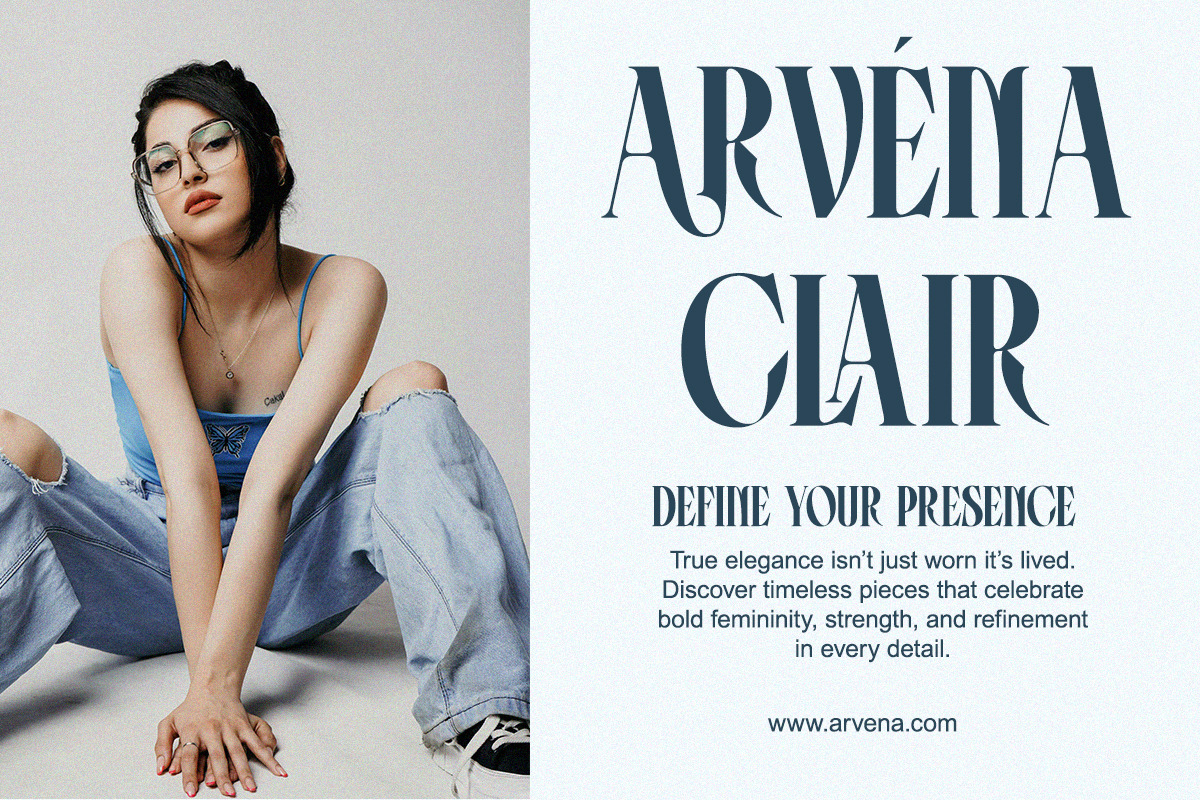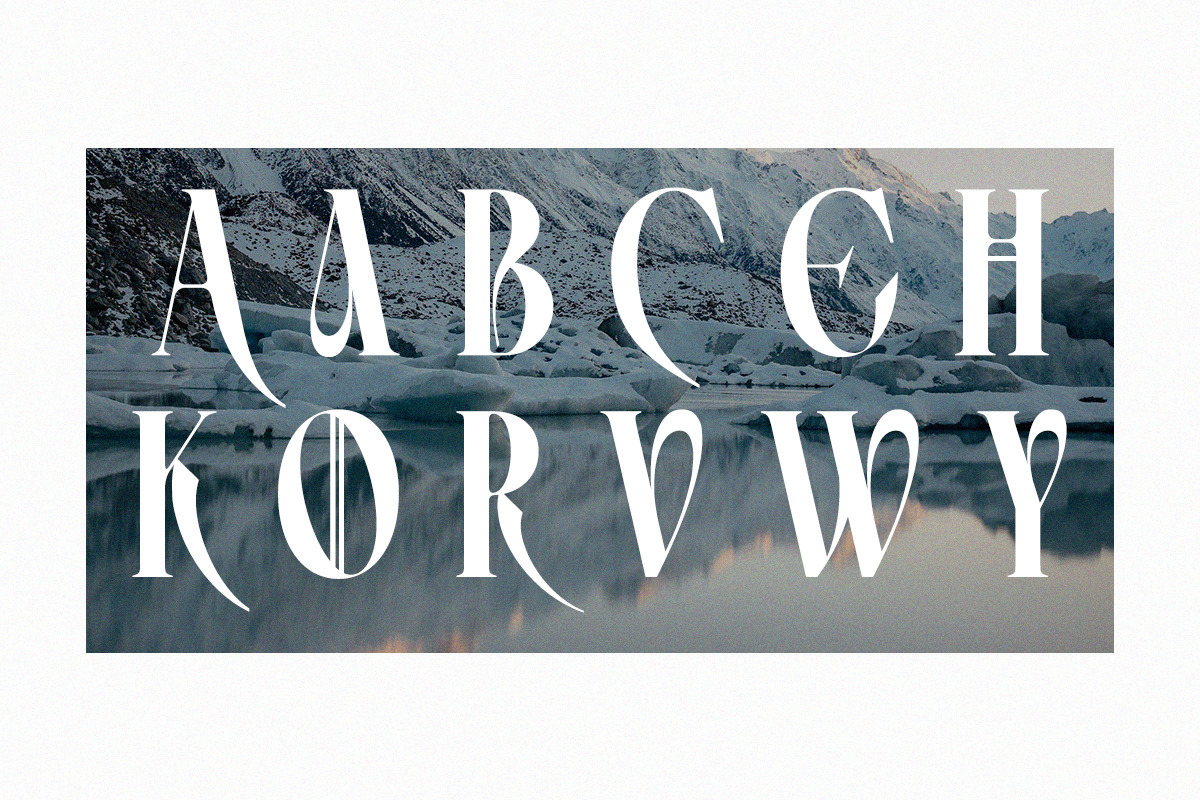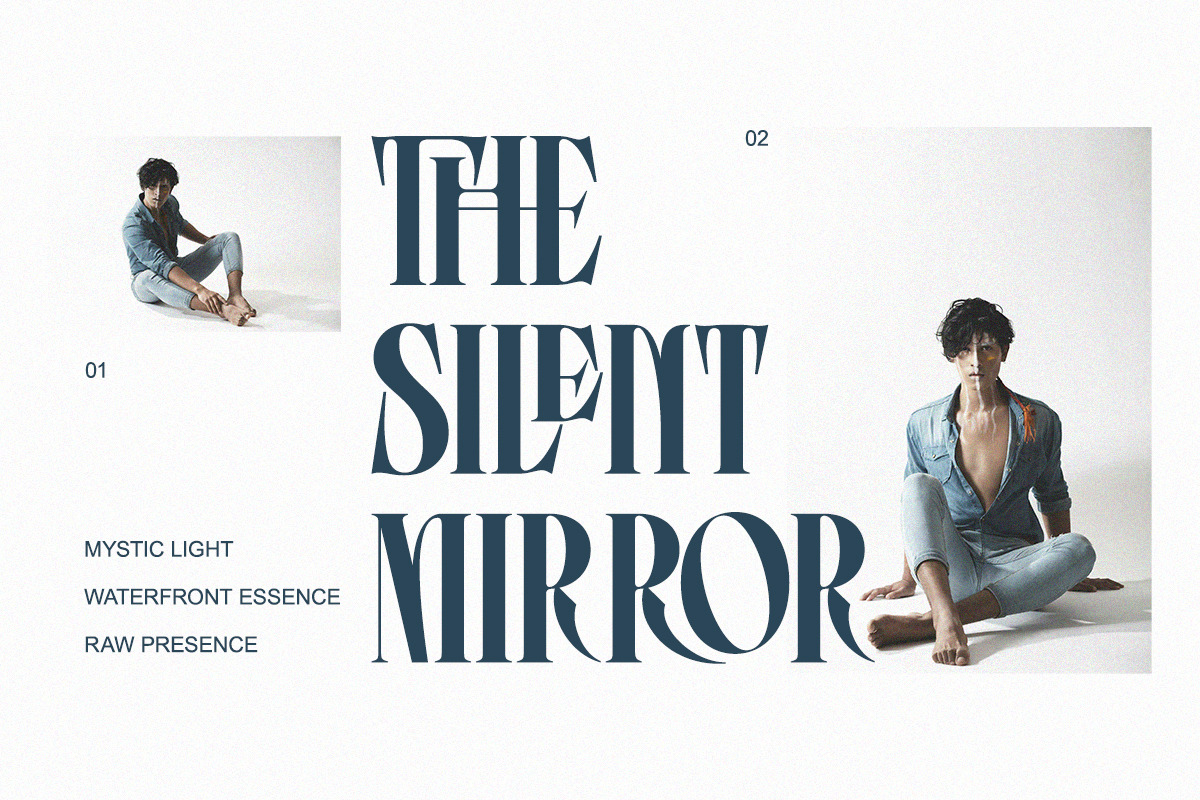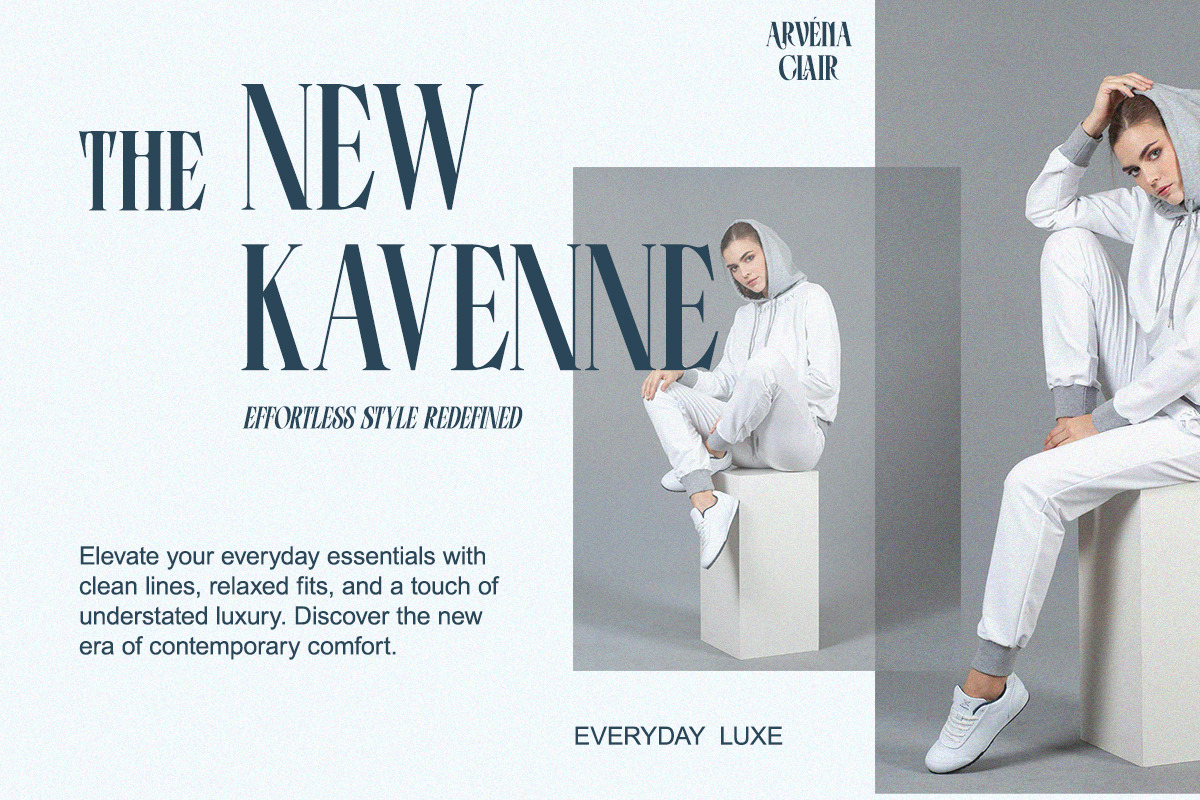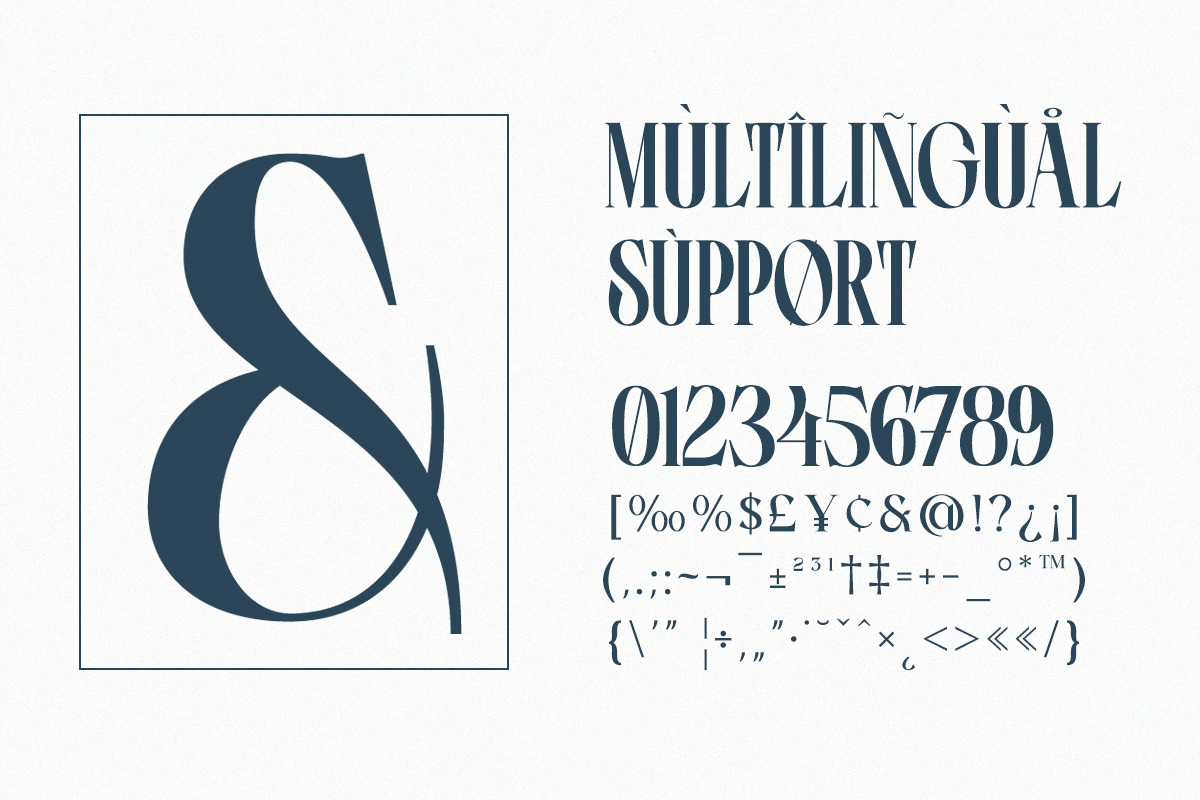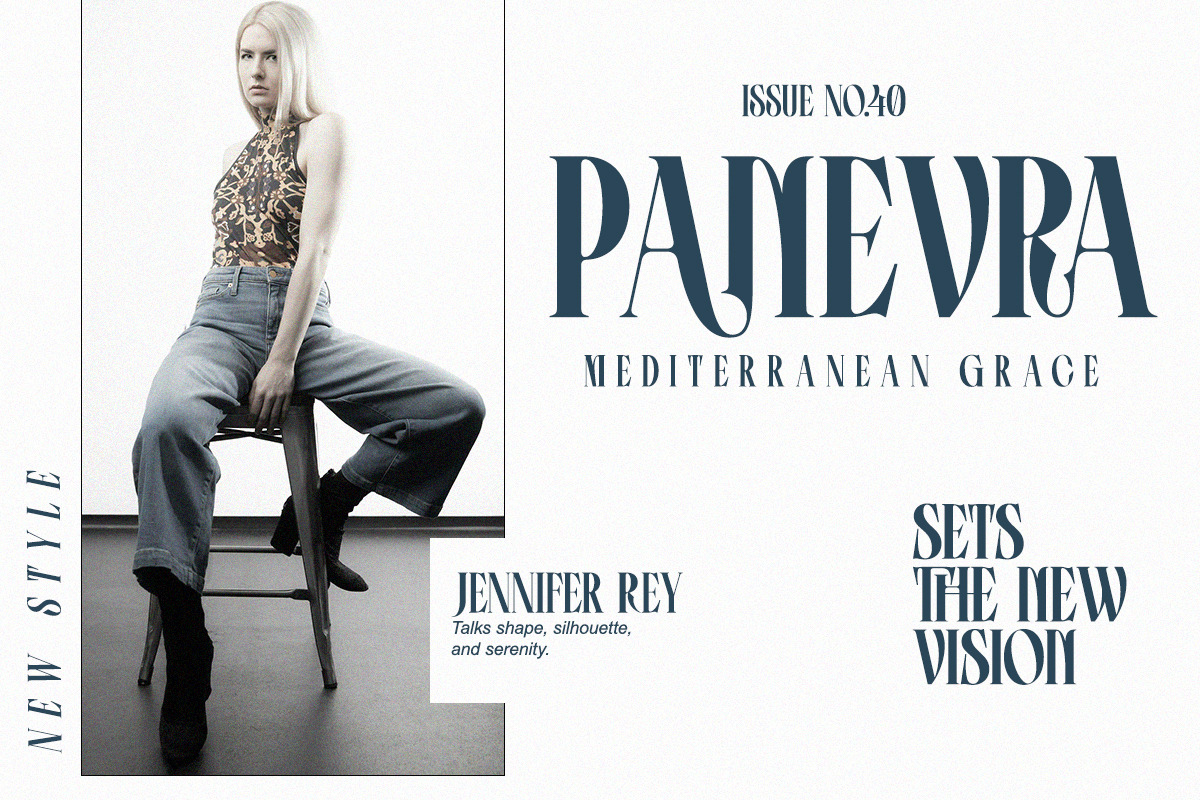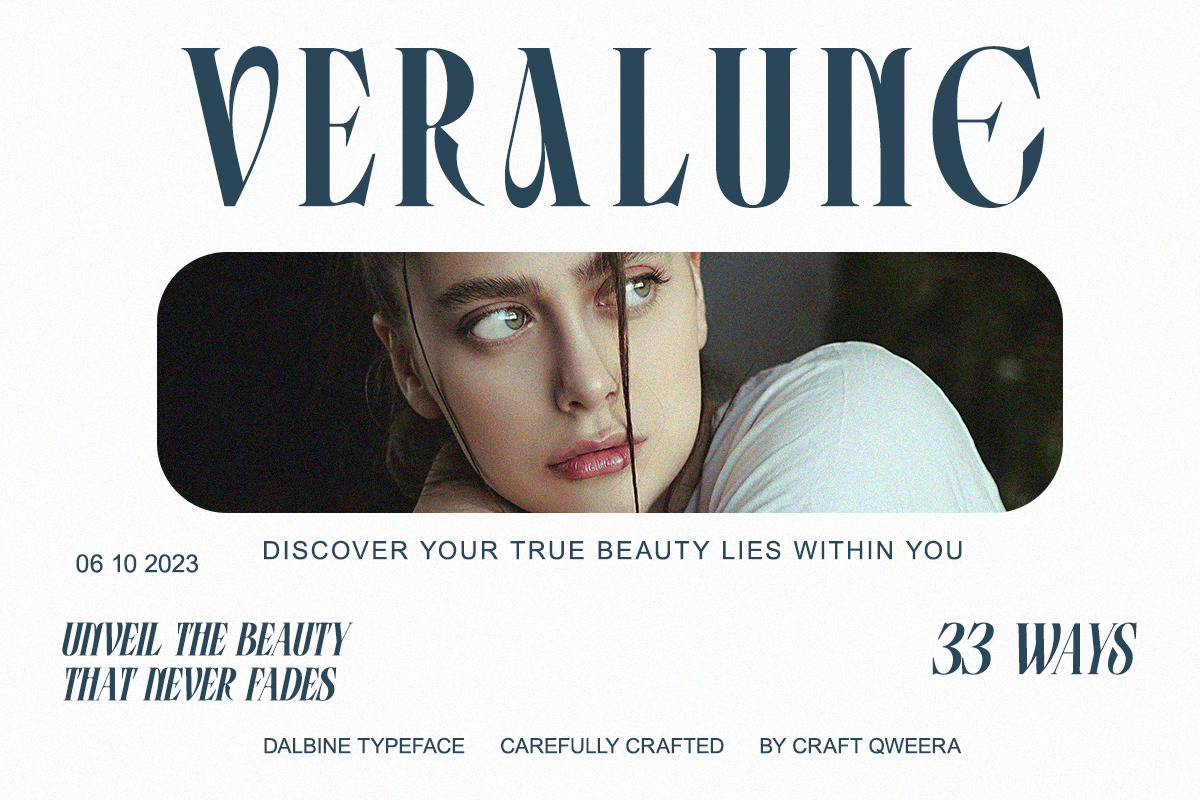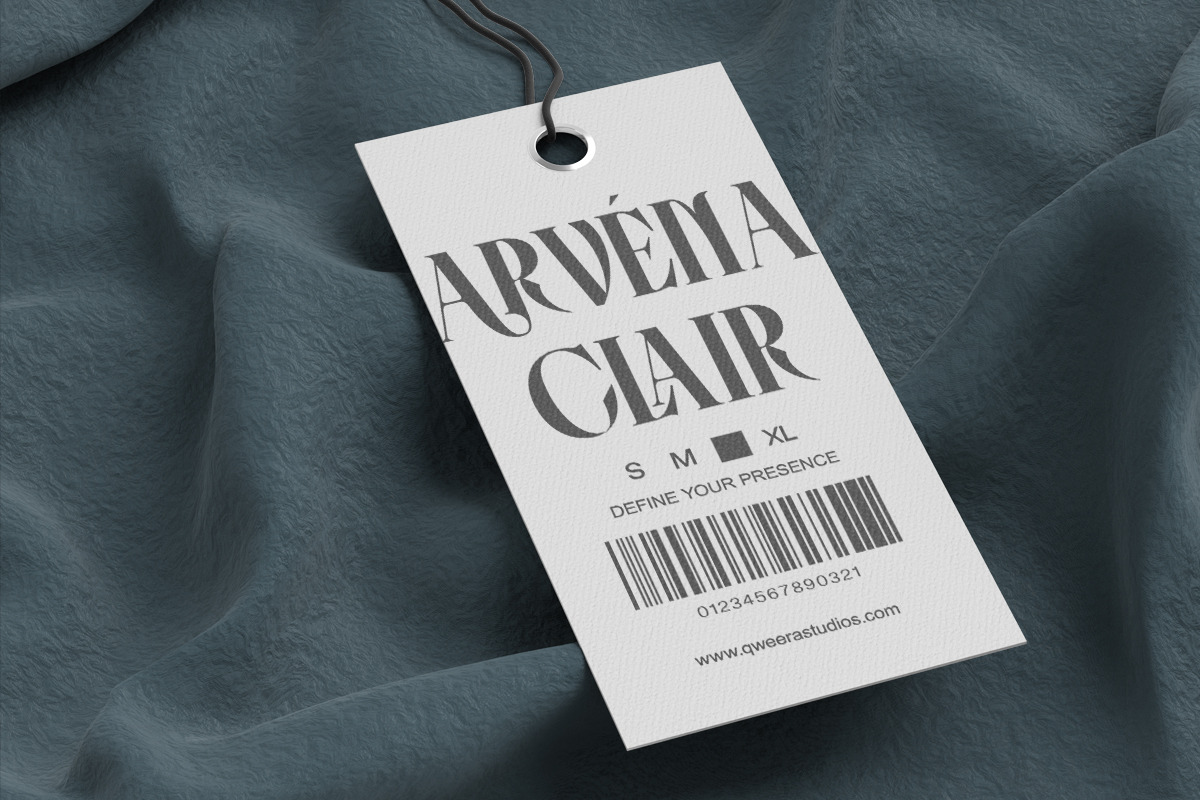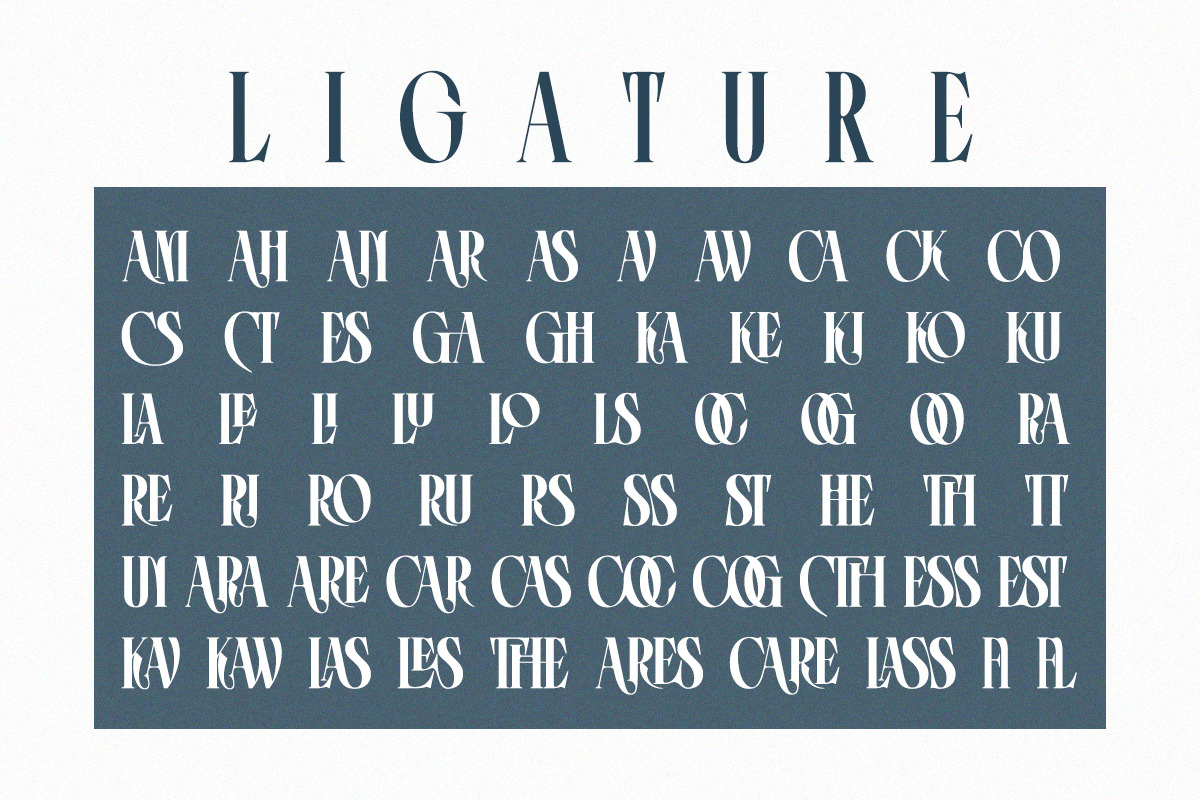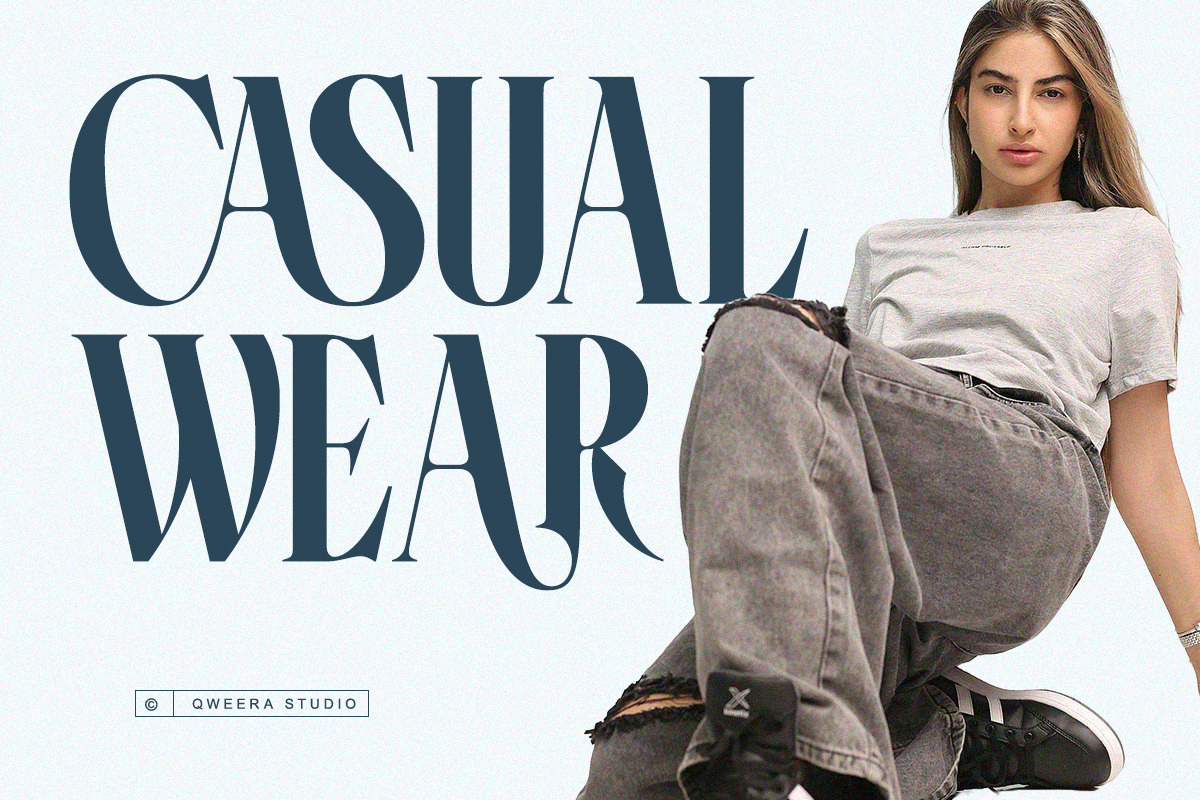
Bartho Class - Elegant Serif
Bartho Class is a bold and elegant serif font with modern refinement and timeless sophistication.
Crafted with high contrast strokes, unique alternates, and refined ligatures, this typeface is perfect for branding, editorial design, luxury packaging, and fashion-forward projects. Bartho Class balances classic serif elegance with modern experimental flair—making it a striking choice for headlines, logos, and statement typography.
Step into the class of timeless typography with Bartho Class.
- Regular & Italic
- Elegant serif style with bold personality
- Alternates & stylistic ligatures
- Uppercase & lowercase included
- Editorial headlines & magazine design
- Fashion logos & branding
- Elegant packaging & luxury identity
- Invitations & posters
- Website headers & product display
- Statement typography projects